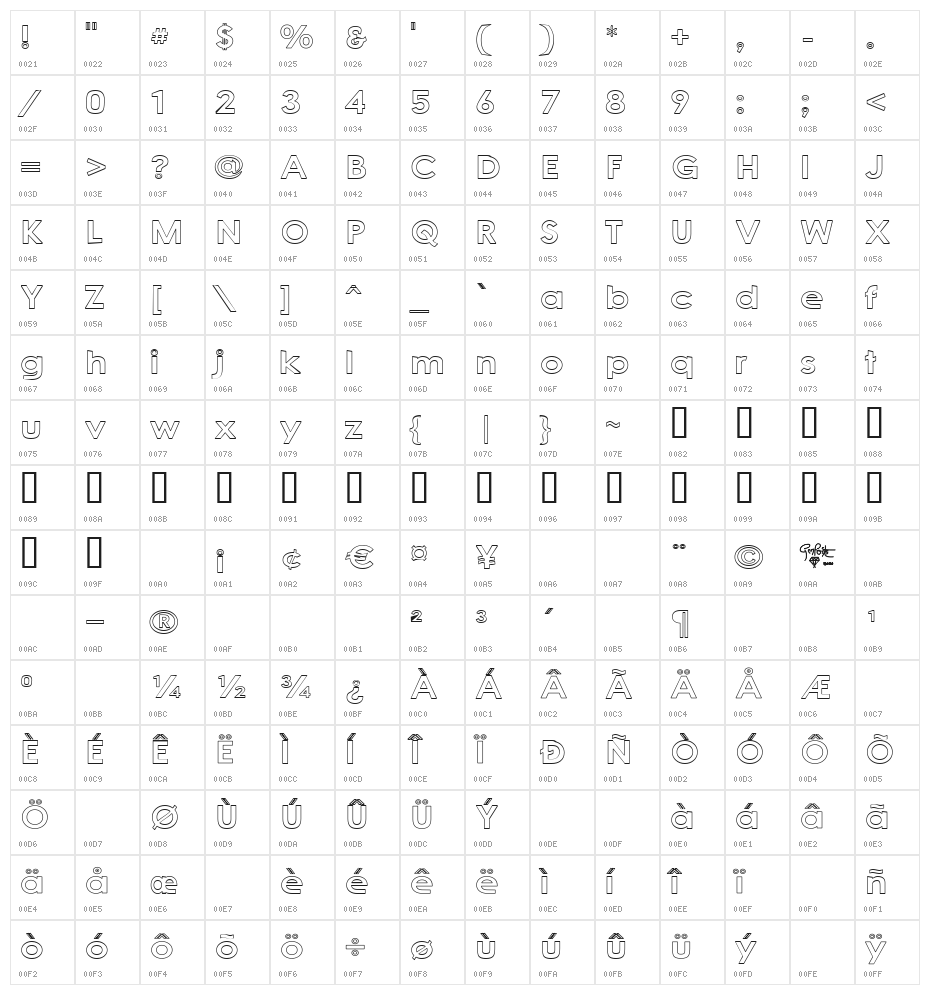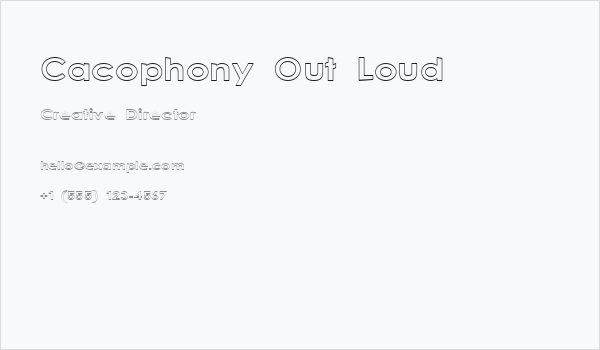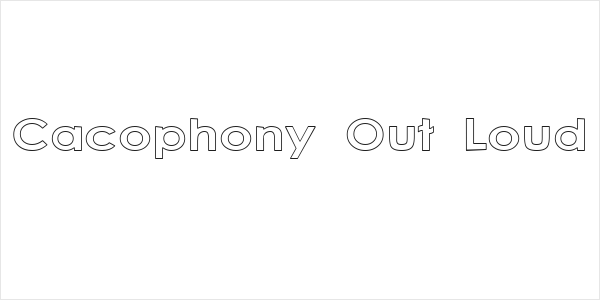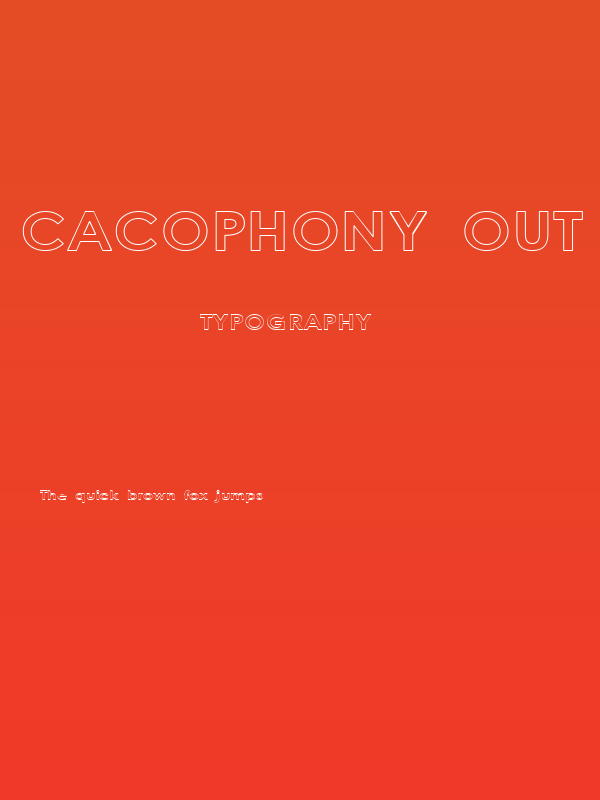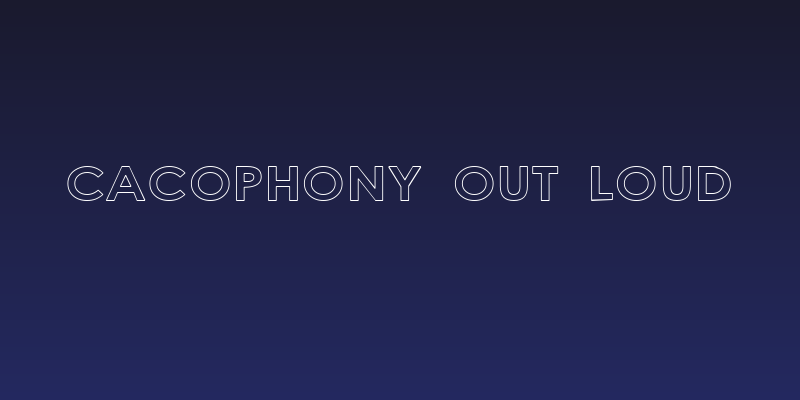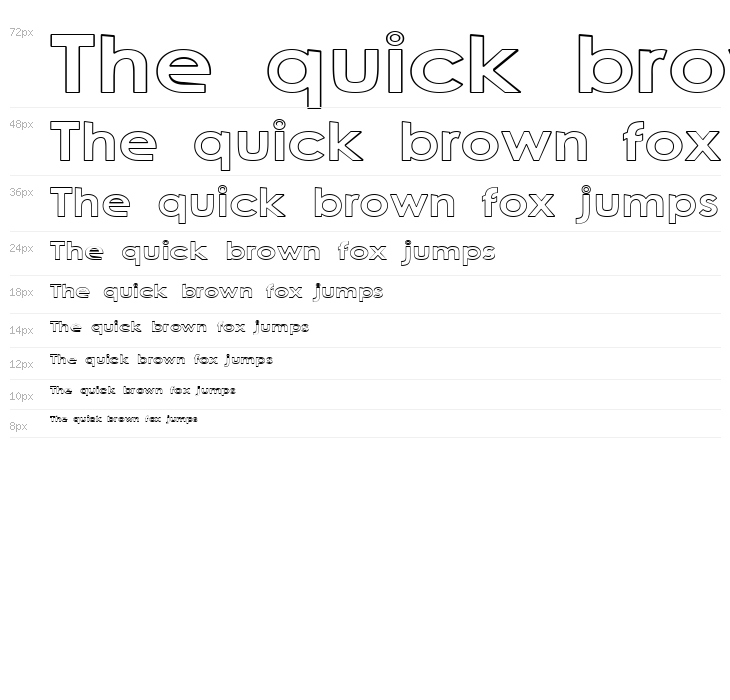
Cacophony Out Loud Font
Cacophony Out Loud Description
This font features a bold, geometric sans-serif style with clean lines and a modern aesthetic. The characters are outlined, giving them a hollow appearance that adds a unique visual interest. The uppercase and lowercase letters maintain a consistent width, creating a balanced and harmonious look. The numerals and special characters follow the same design principles, ensuring uniformity across all glyphs. This font's simplicity and clarity make it highly legible, while the outlined style offers a distinctive touch that sets it apart from traditional solid fonts.
| Proposed Projects | Ideal for branding, posters, headlines, and any design project that requires a modern and eye-catching typeface. |